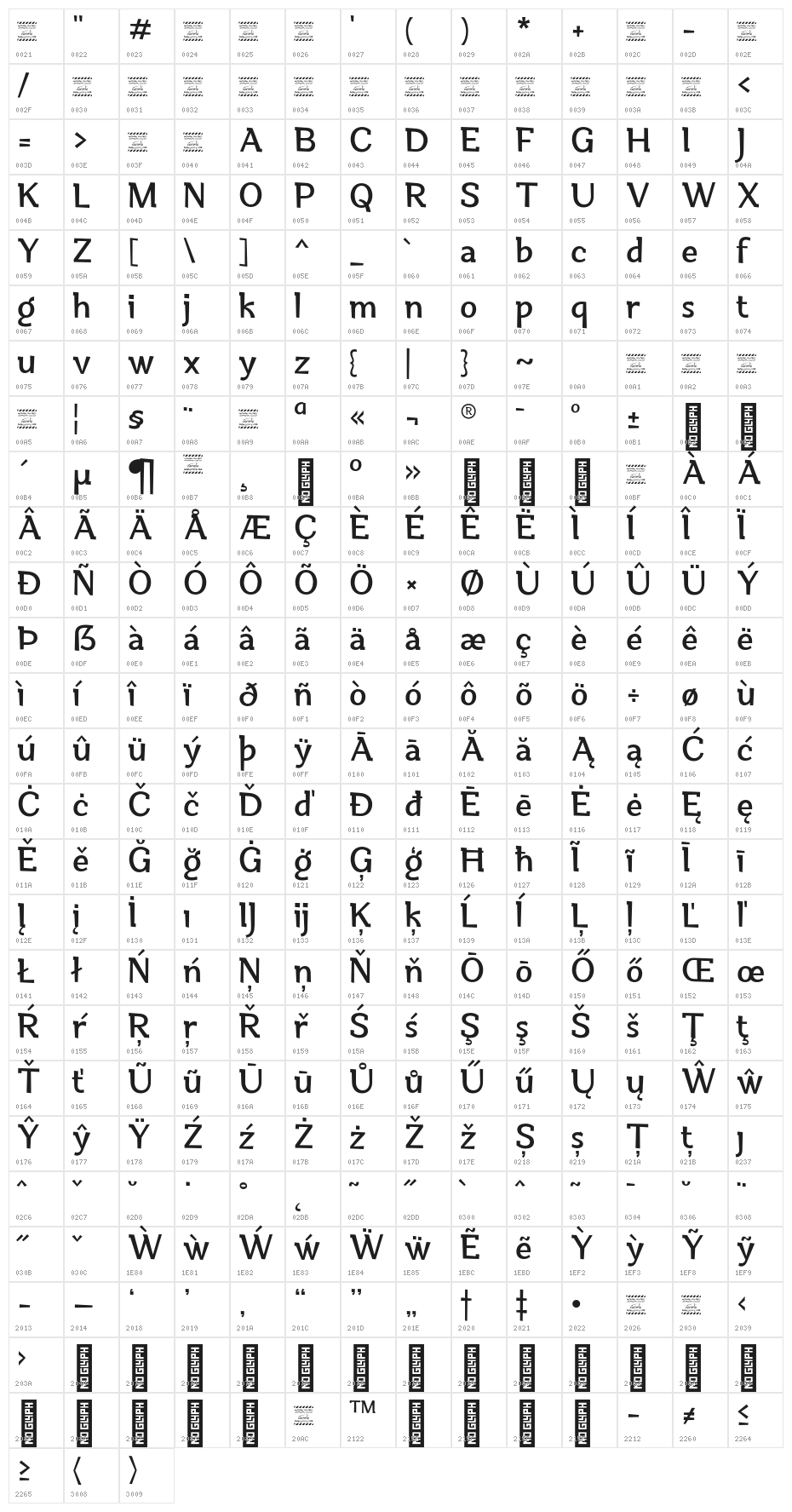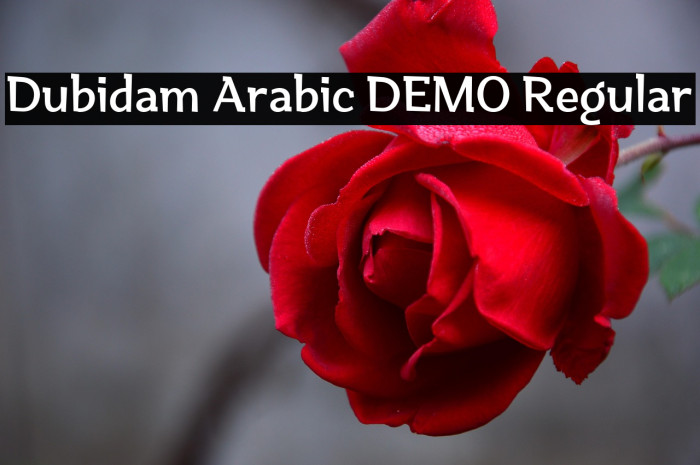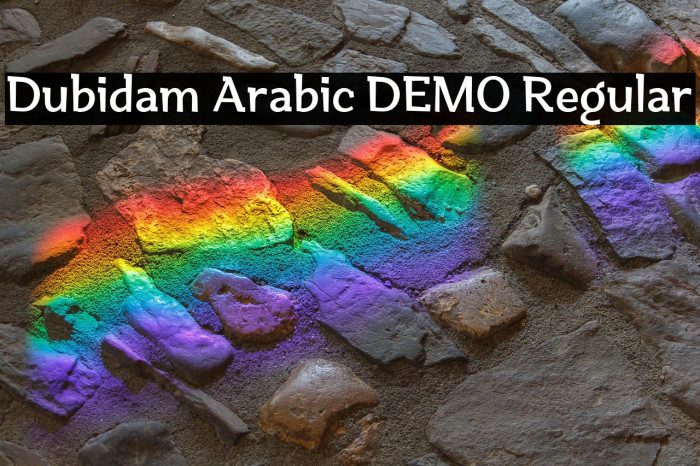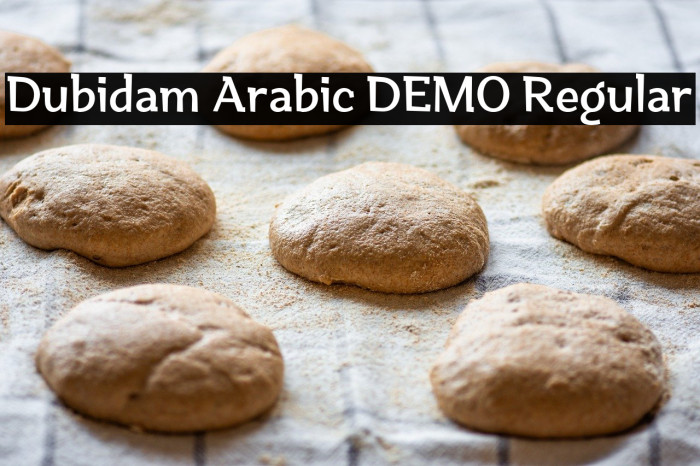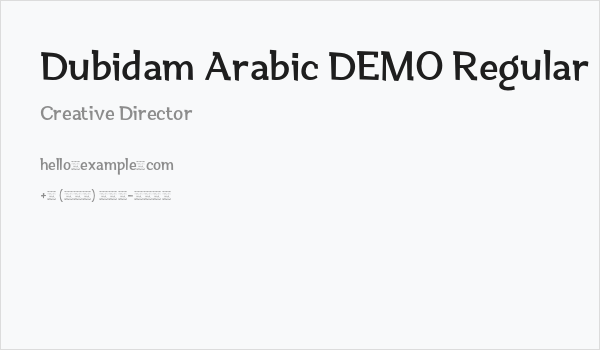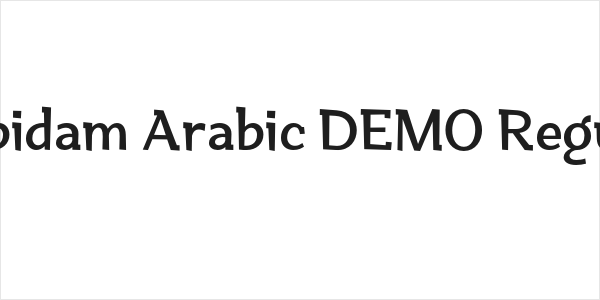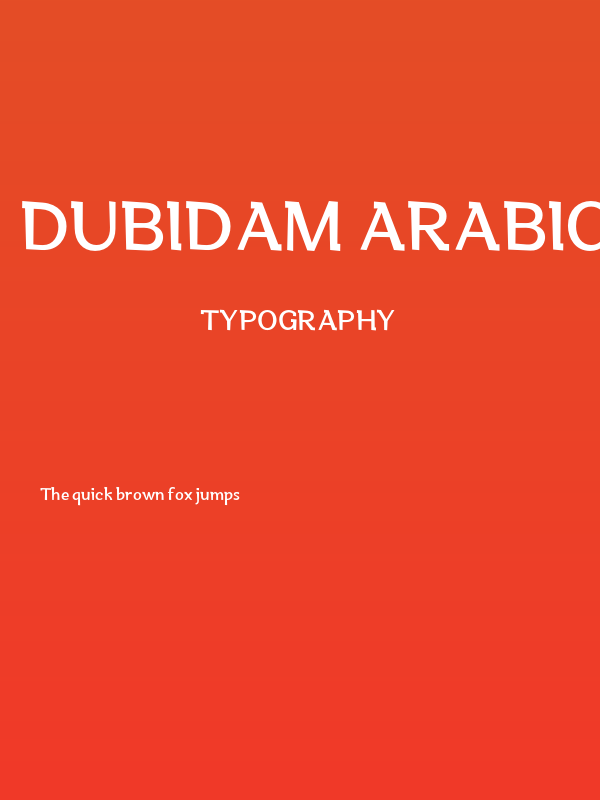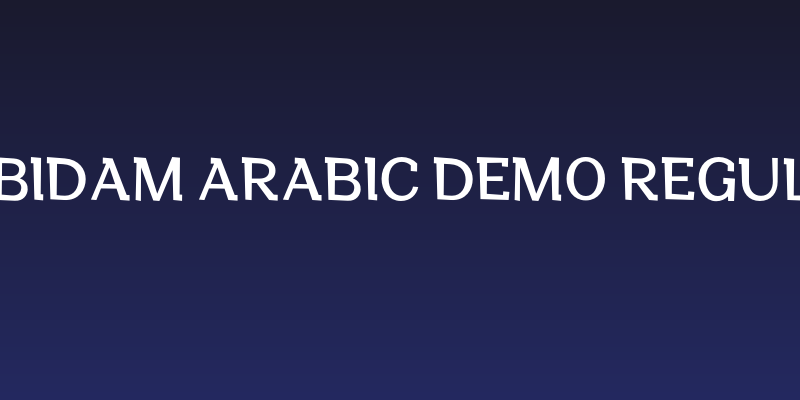
Dubidam Arabic DEMO Regular Font
Dubidam Arabic DEMO Regular Description
This font features a unique blend of modern and traditional elements, characterized by its slightly angular and geometric letterforms. The uppercase letters are bold and assertive, while the lowercase letters maintain a consistent flow with rounded edges. The numbers are clear and legible, making them suitable for various applications. Special characters are distinct and well-defined, adding versatility to the font. The overall design is clean and professional, with a subtle artistic flair that makes it stand out.